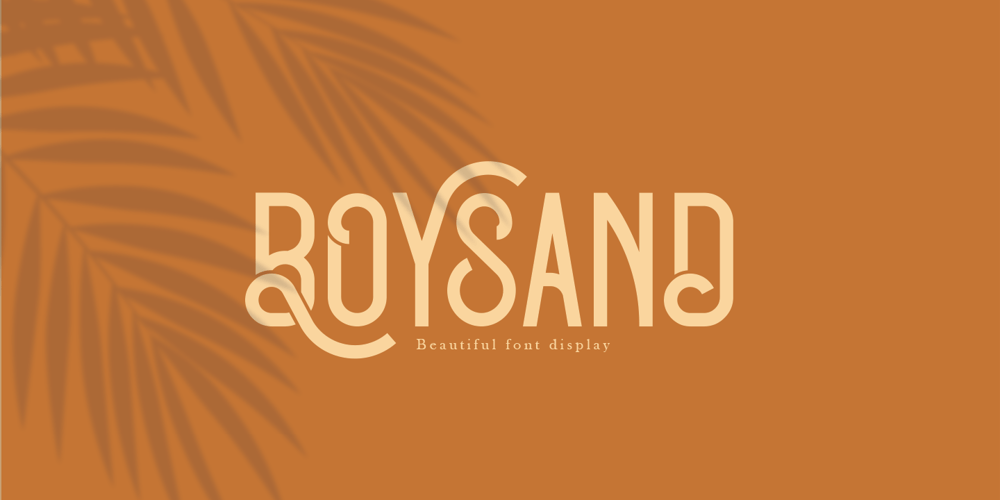
Boysand
Boysand font
Boysand Font Family was designed by Ari Juanda and published by Linecreative. Boysand contains 1 styles and family package options. Boysand is a display font that has a modern vintage style, and is complete with uppercase, lowercase, and ligatures to provide unlimited design possibilities. This font works great for posters, logos, magazines, covers, banners, t-shirts and headers, or even large scale artwork.